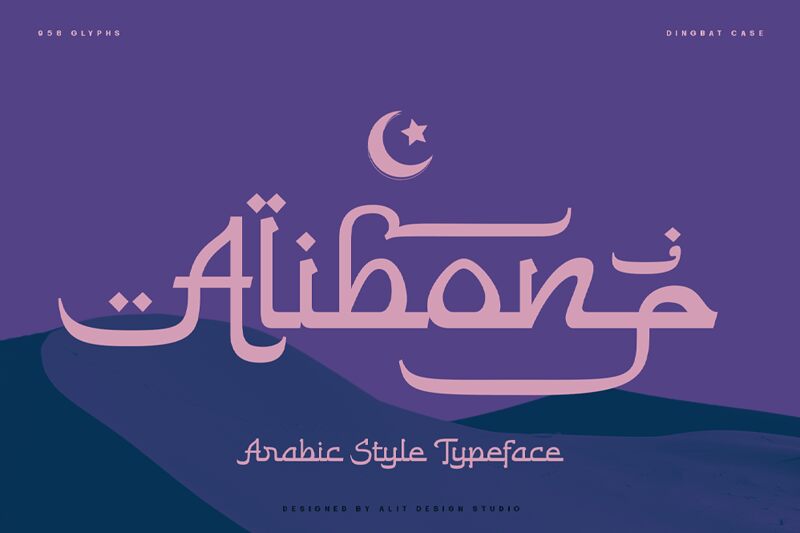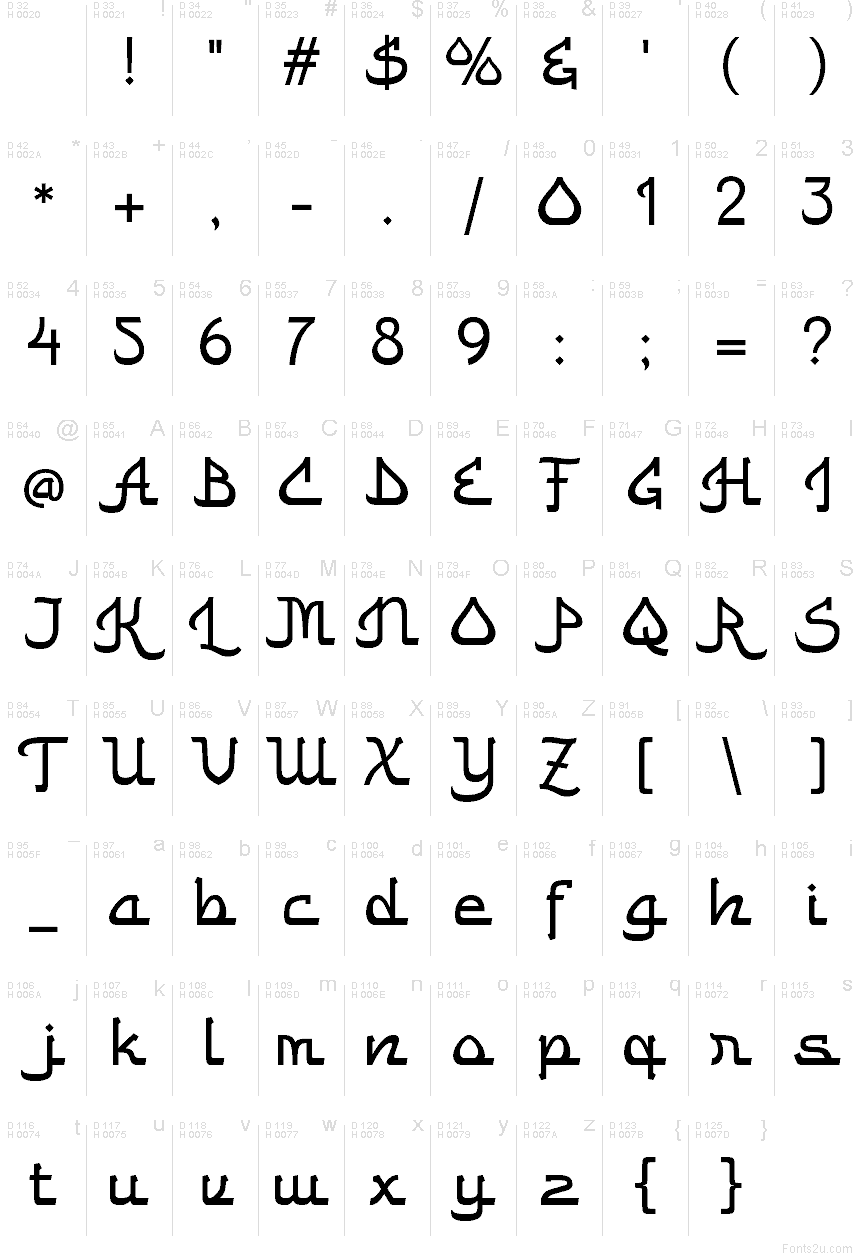
Alibon Regular
Alibon font by Alit Design is a free foreign faux Arabic typeface that brings a touch of souk signage and hand-painted storefronts into Latin lettering. Its looping strokes, hooked entry shapes, and stacked diamond dots create a flowing, calligraphic rhythm that feels both theatrical and approachable. The letters connect visually without fully joining, giving you that script-like sweep while staying clear and readable at medium to large sizes.
Using Alibon, you can instantly signal Middle Eastern or North African themes in restaurant branding, food packaging, festival posters, travel brochures, event invitations, and game or film titles. This free font shines when you set it big and give it room to breathe, then support it with a simple geometric sans serif for body copy to keep the overall system balanced and contemporary.